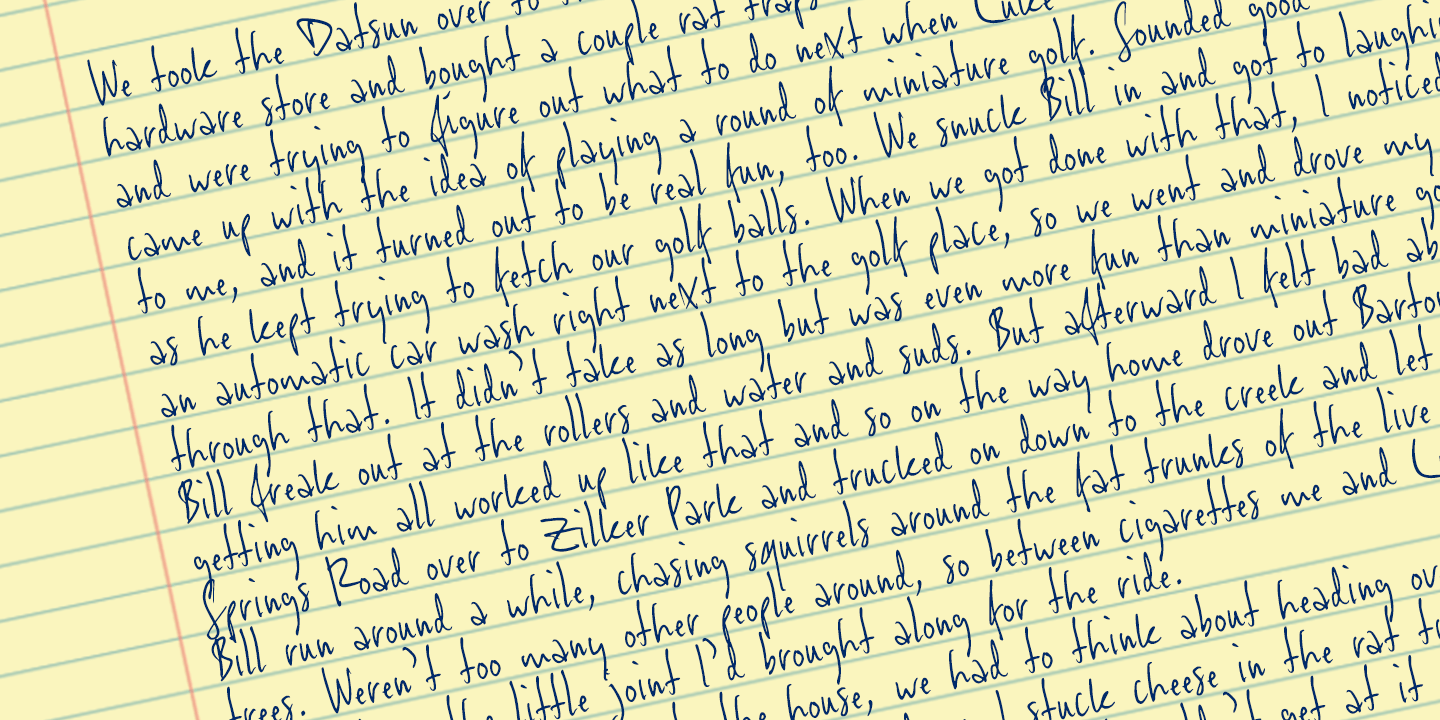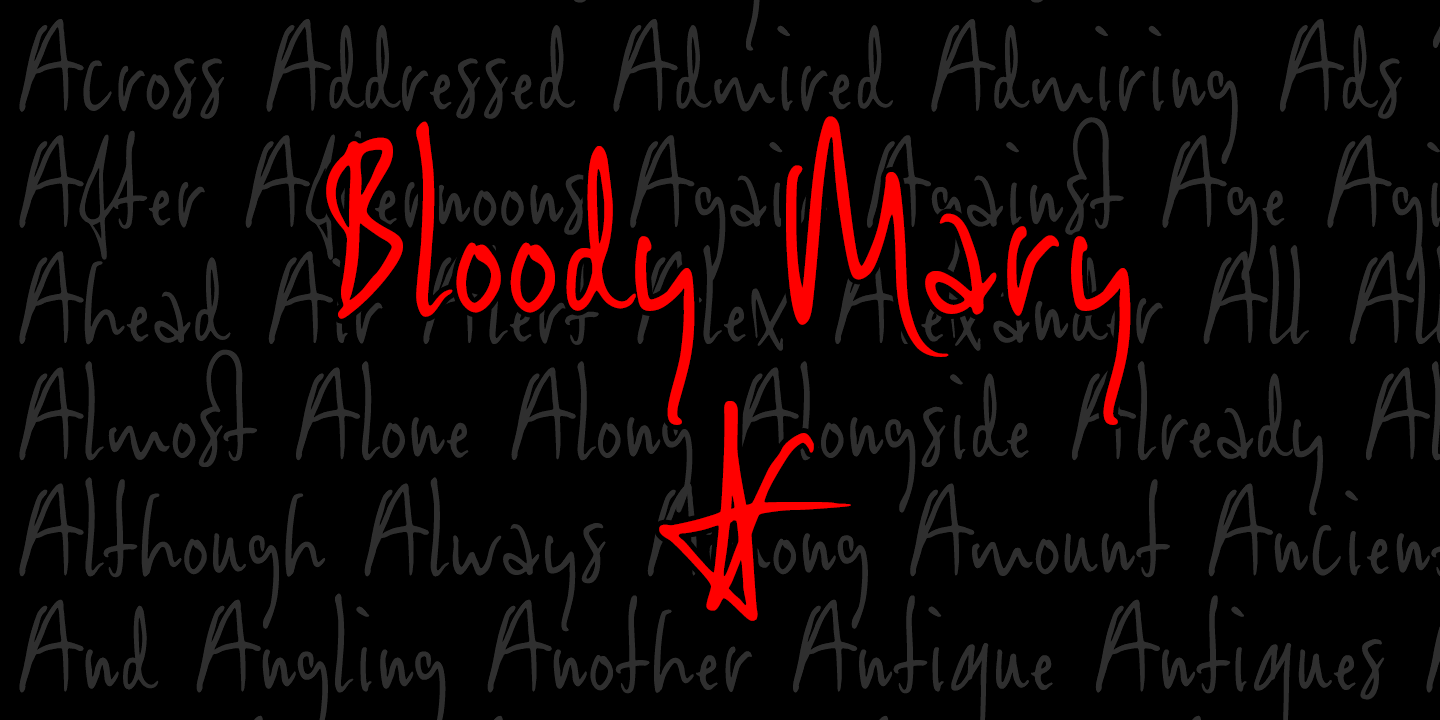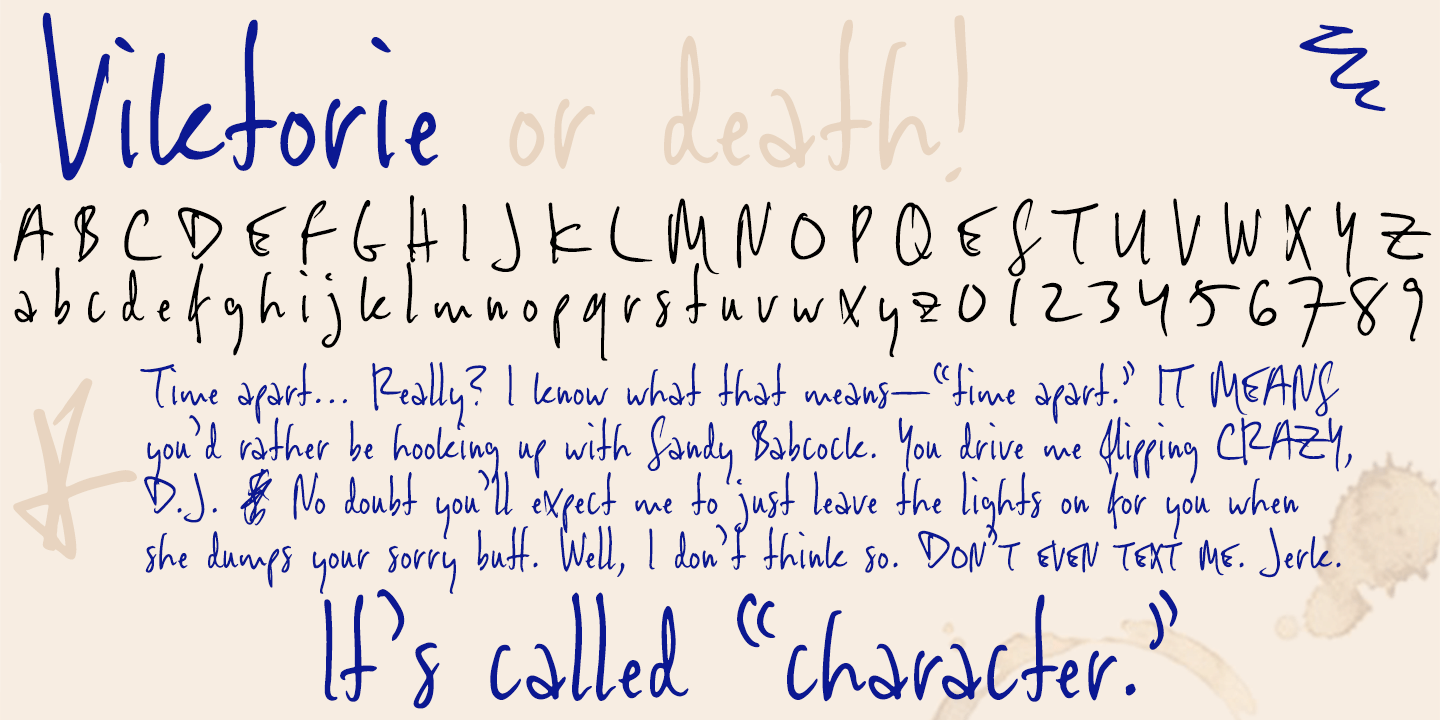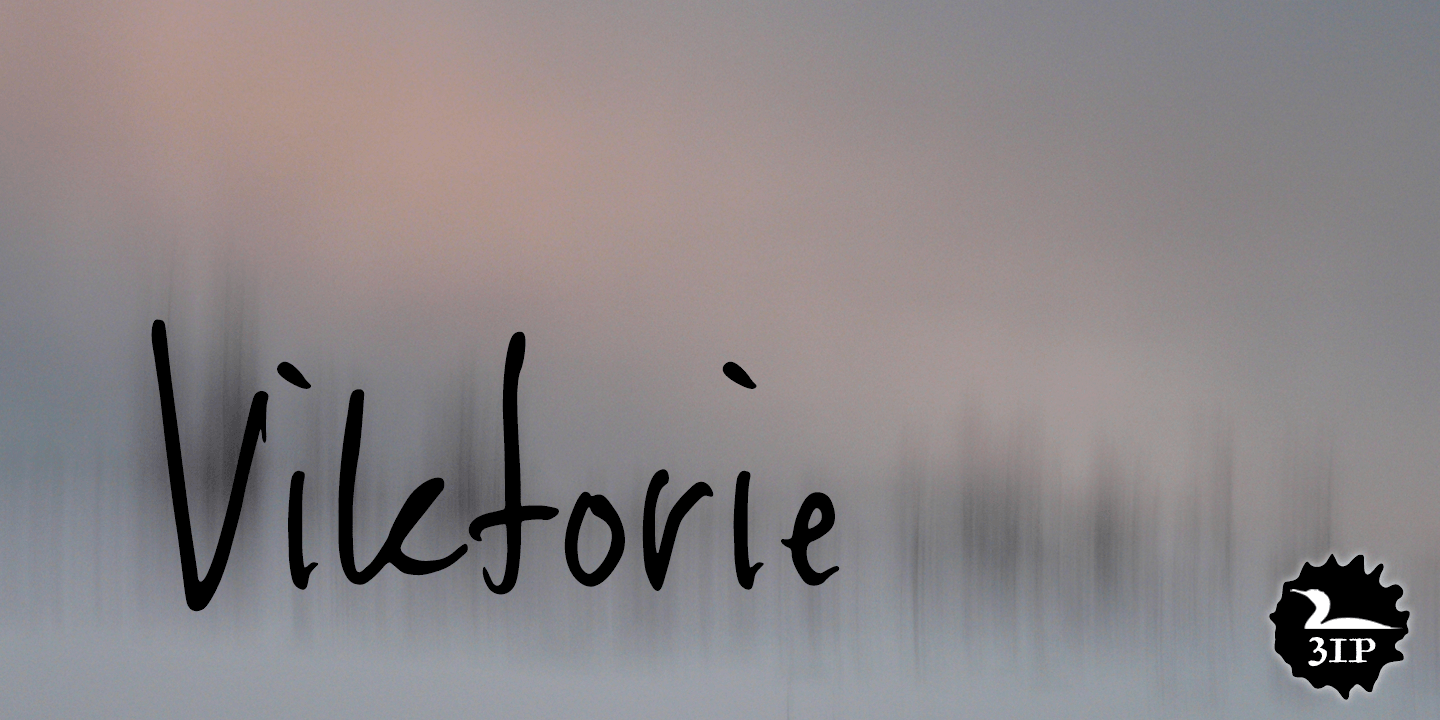
About Viktorie
Viktorie might easily be mistaken for the handwriting of a note-taker in a hurry: it looks swiftly jotted down. These energetic characters pay little heed to such arbitrary constraints as baseline or x-height — taken together, they give the effect of…